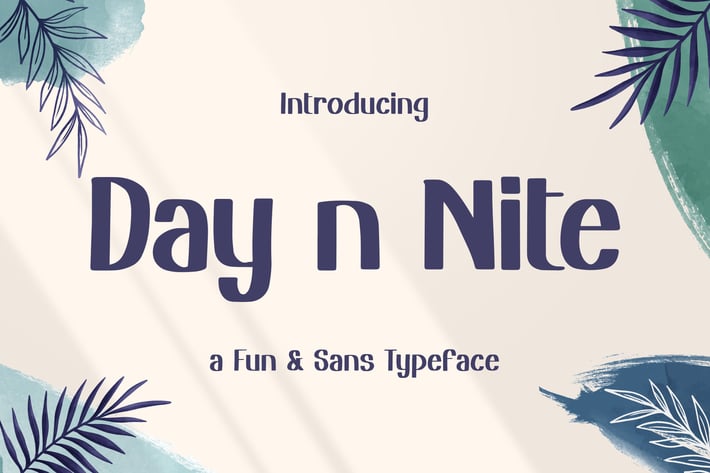
Day n Nite – Fun Sans Typeface
Day n Nite is a playful display font.
It has a cheerful look that will elevate your crafting projects to the highest level, be it branding, headings, wedding designs, invitations, signatures, logos, labels, and much more!
– Lowercase
– Ligature
– Alternate
– Multilingual Support